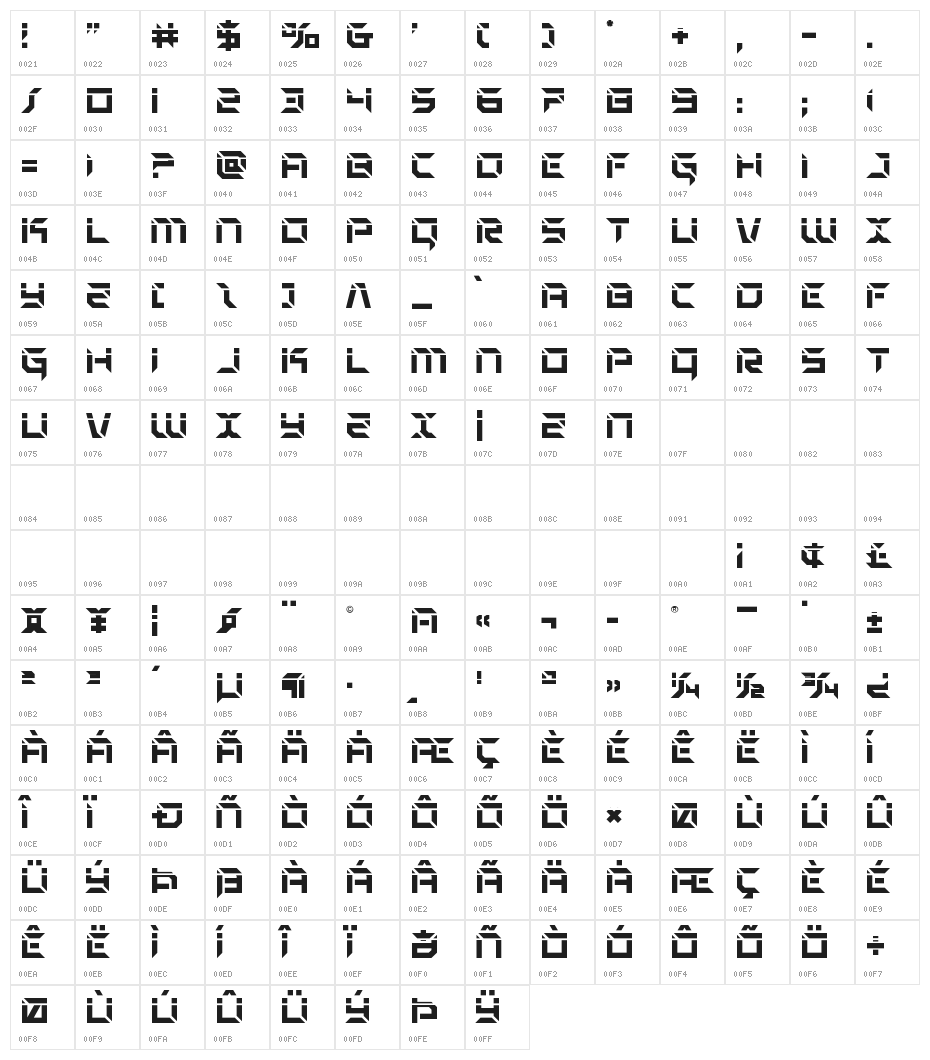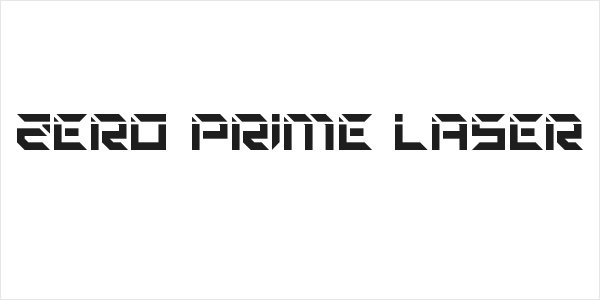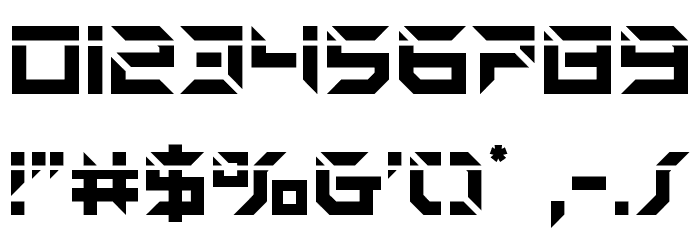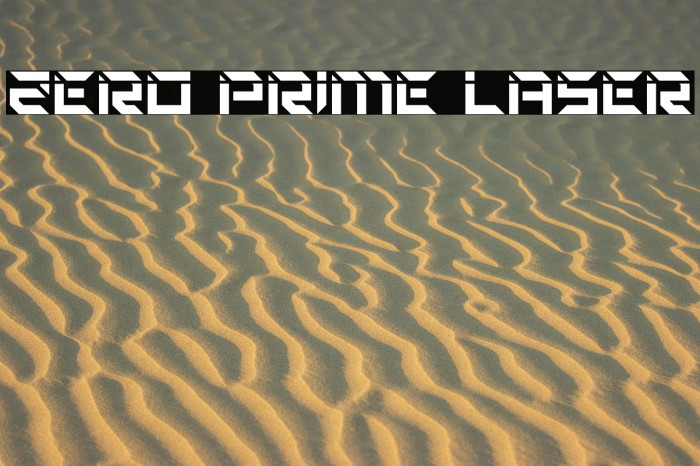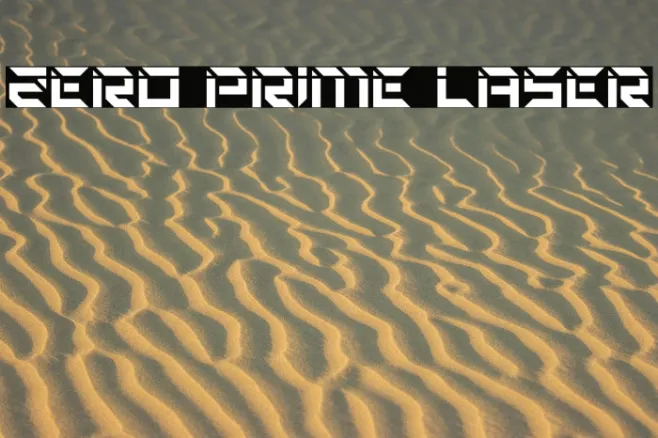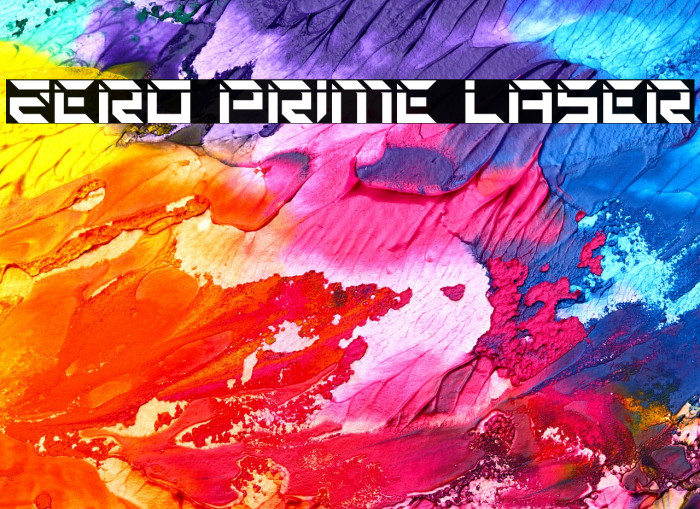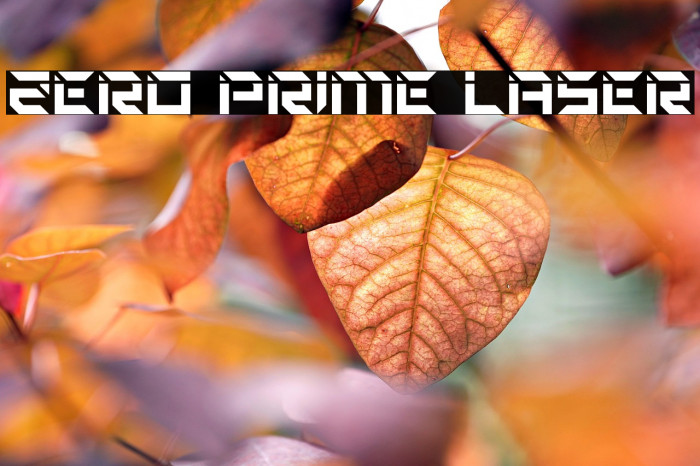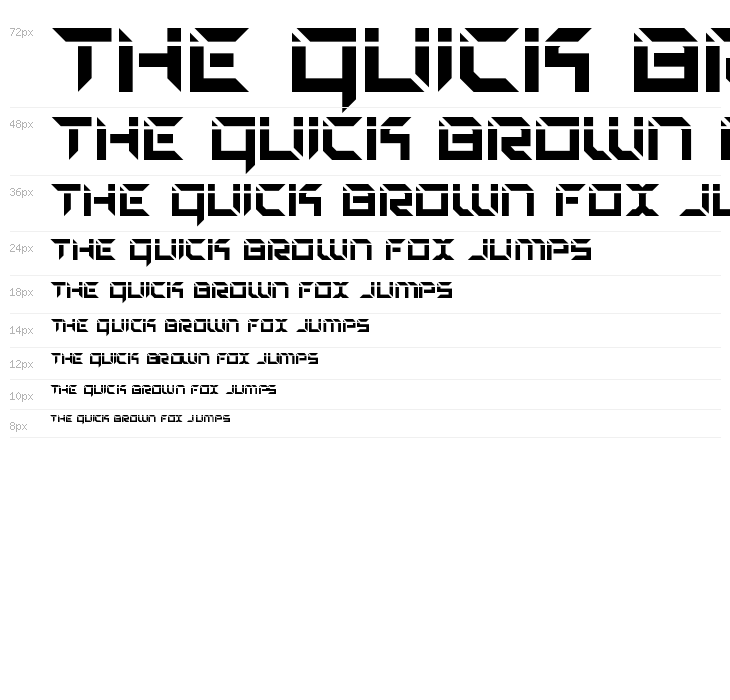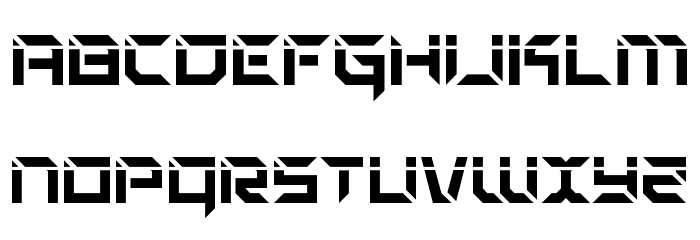
Zero Prime Laser Font
Zero Prime Laser Description
This font features a futuristic and angular design, characterized by sharp edges and geometric shapes. The letters are constructed with a bold, solid appearance, giving them a strong visual impact. The style is reminiscent of digital or sci-fi themes, with a distinct mechanical feel. The uppercase and lowercase letters maintain a consistent design, while the numbers and special characters follow the same aesthetic, ensuring uniformity across the typeface. The font's unique style makes it stand out, suitable for projects that require a modern and edgy look.
| Proposed Projects | Ideal for sci-fi themed designs, tech branding, video game titles, and futuristic posters. |